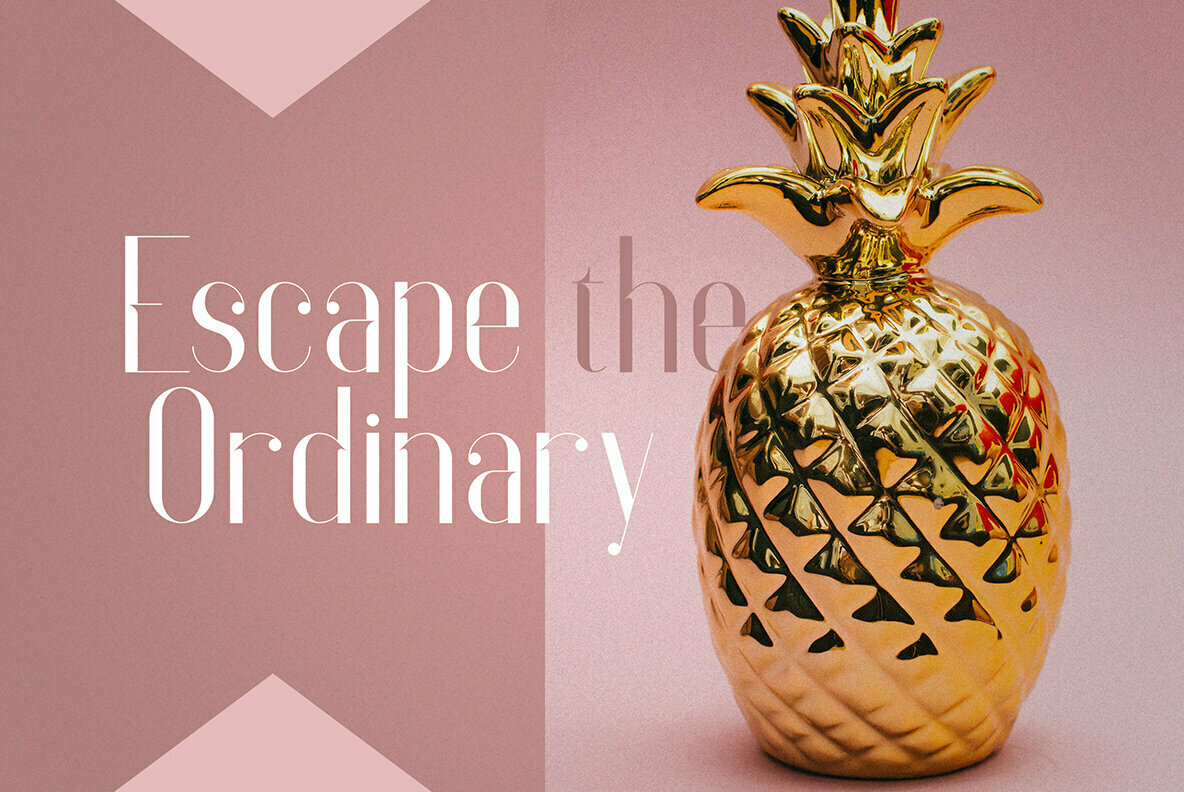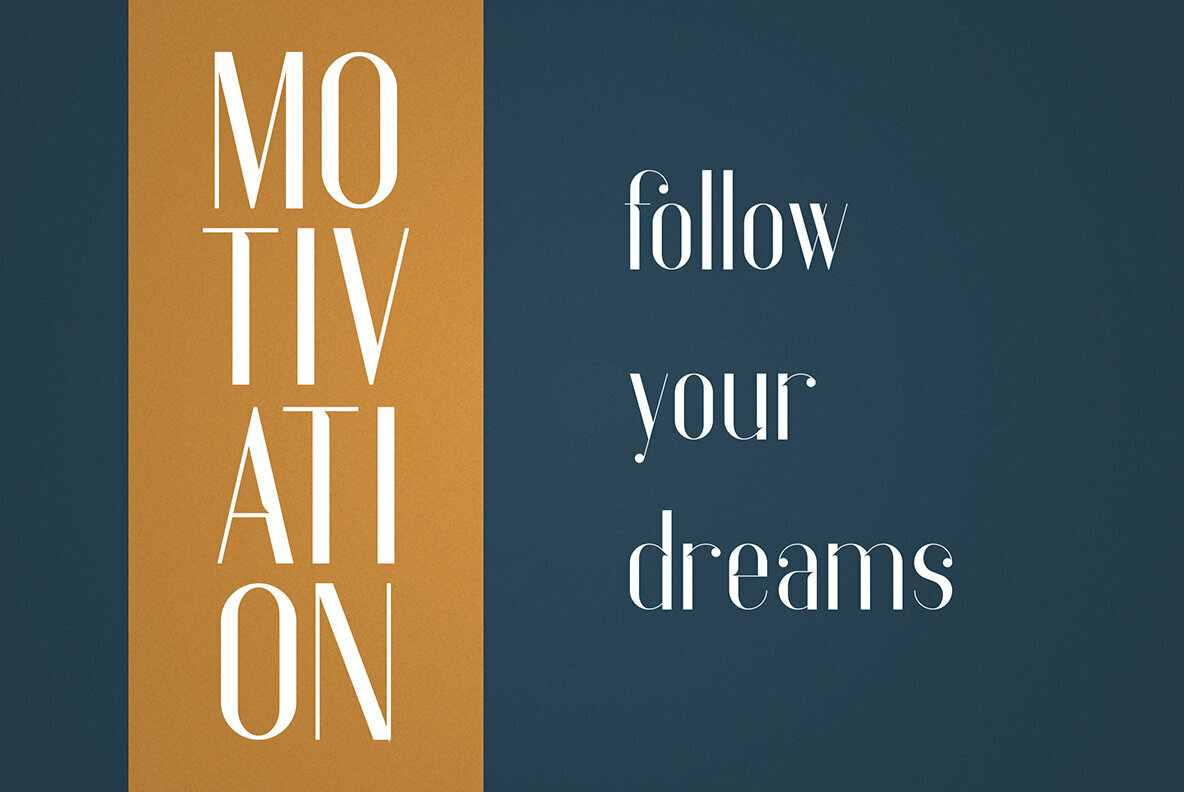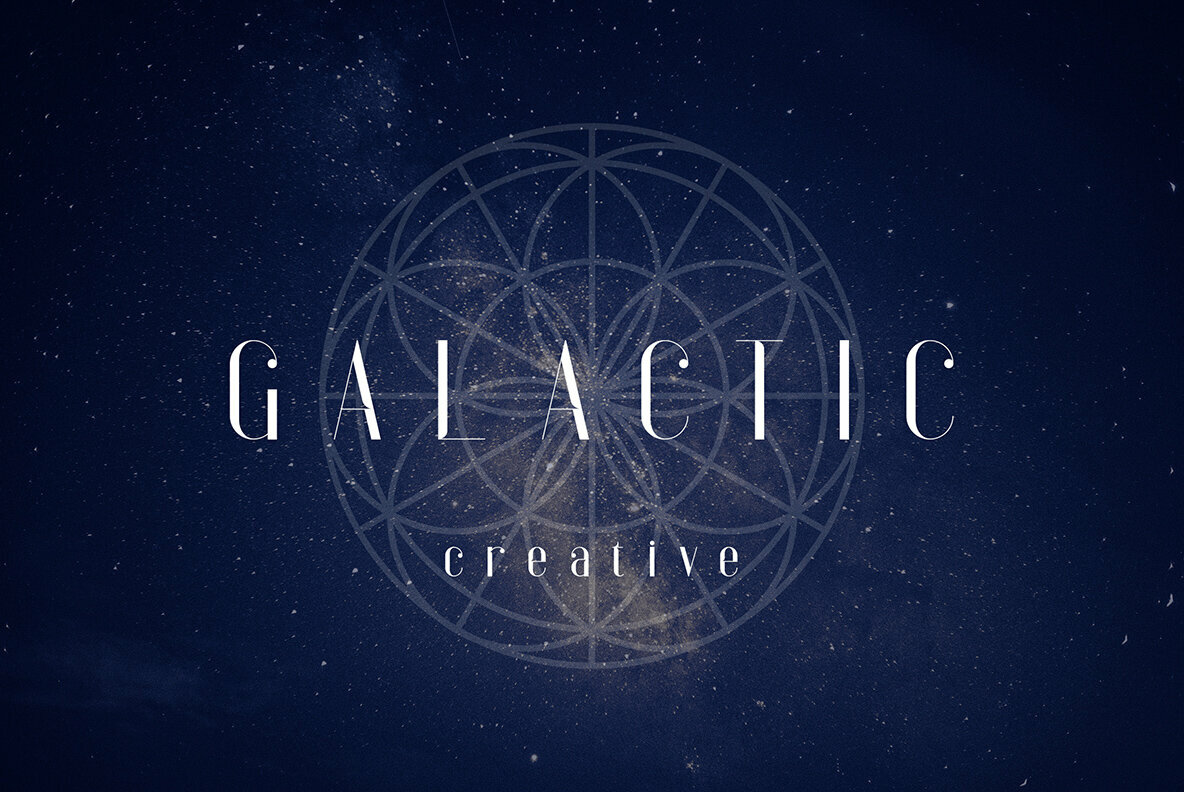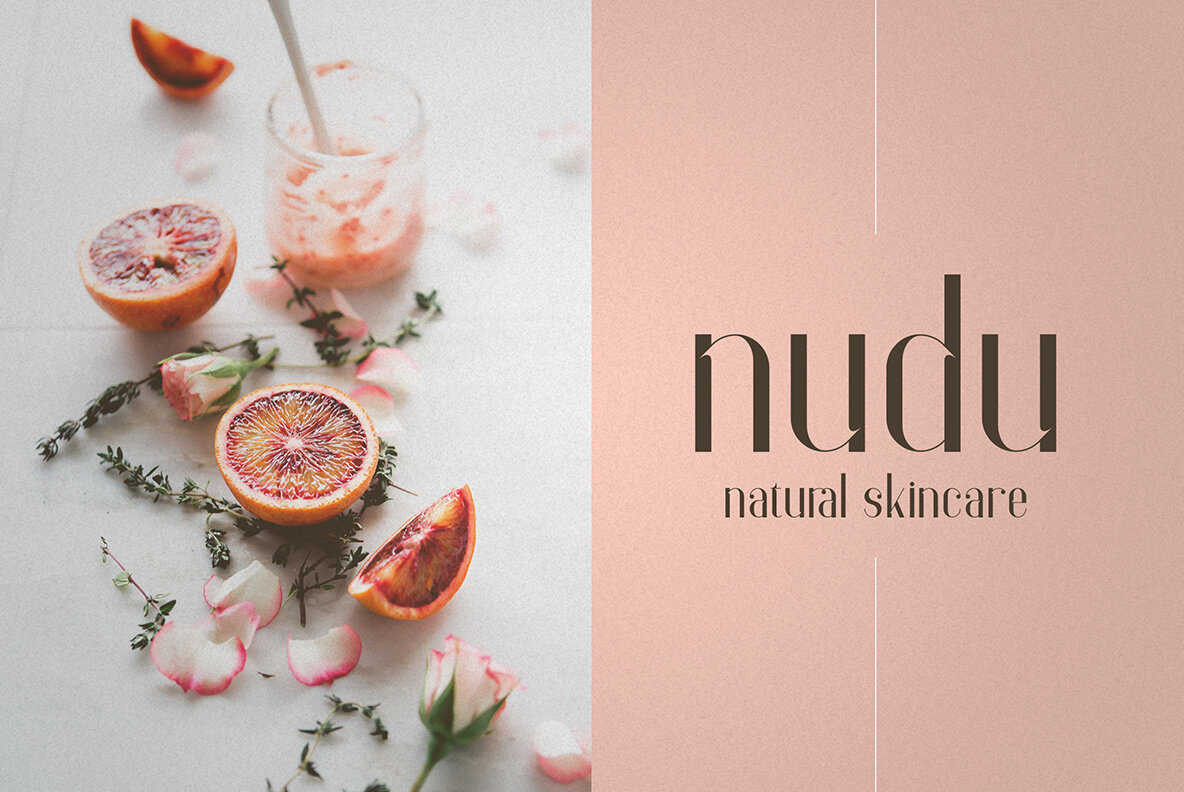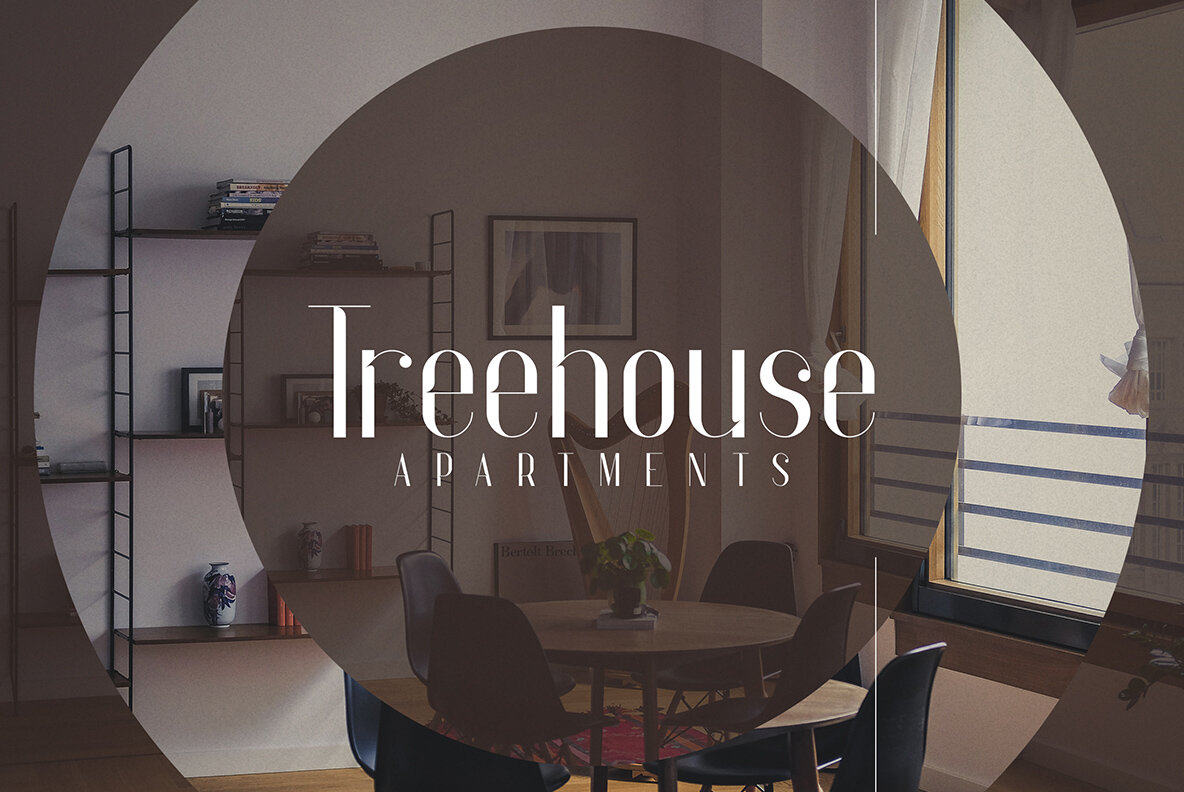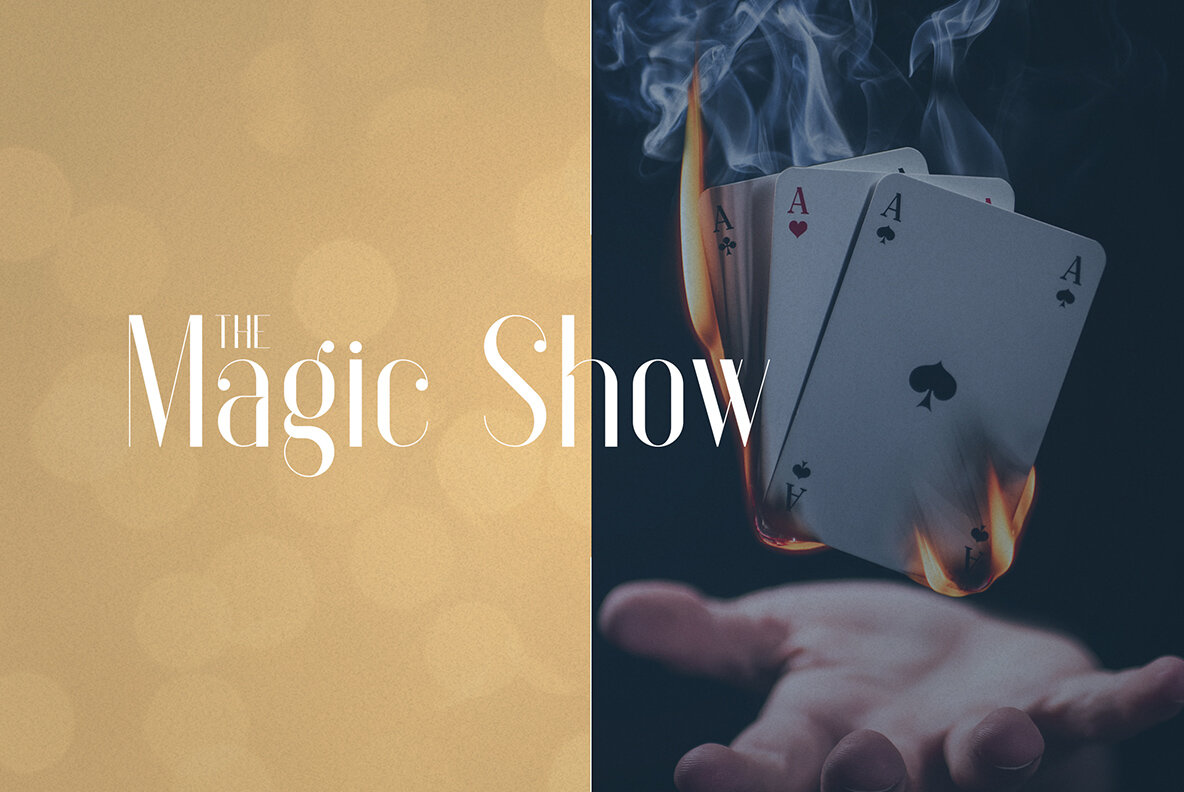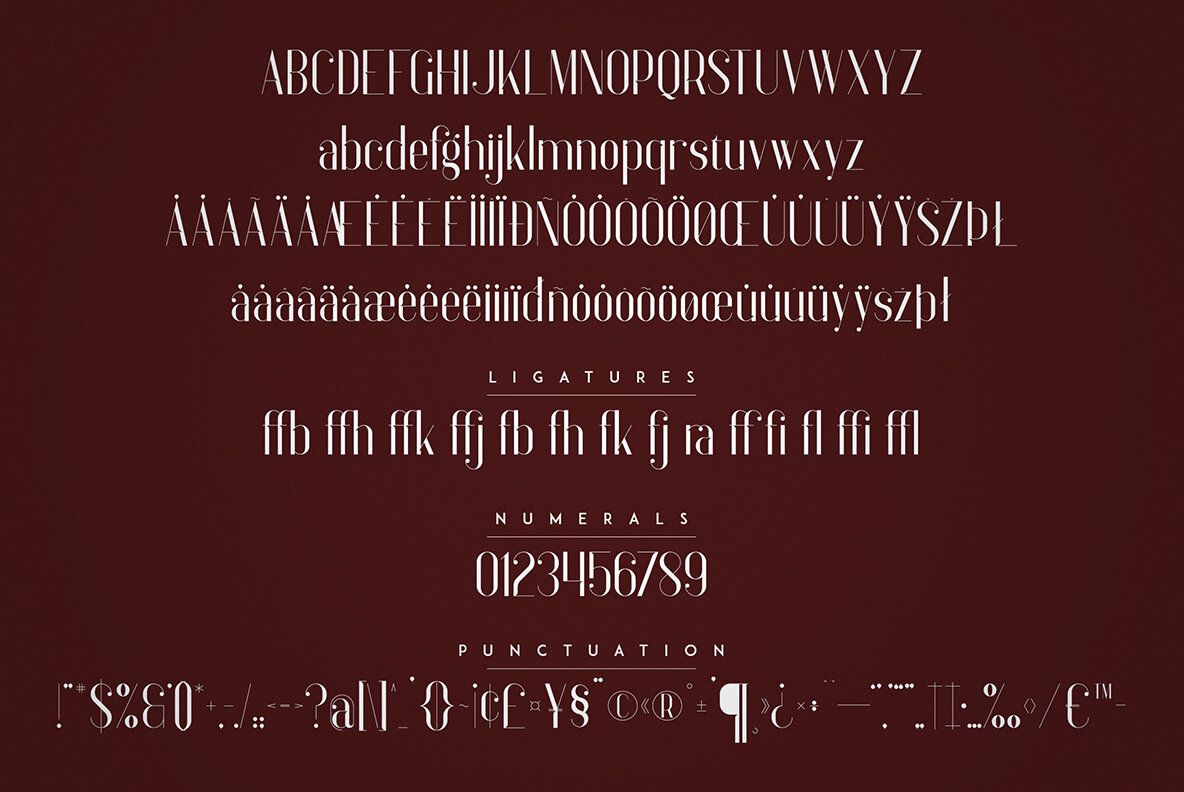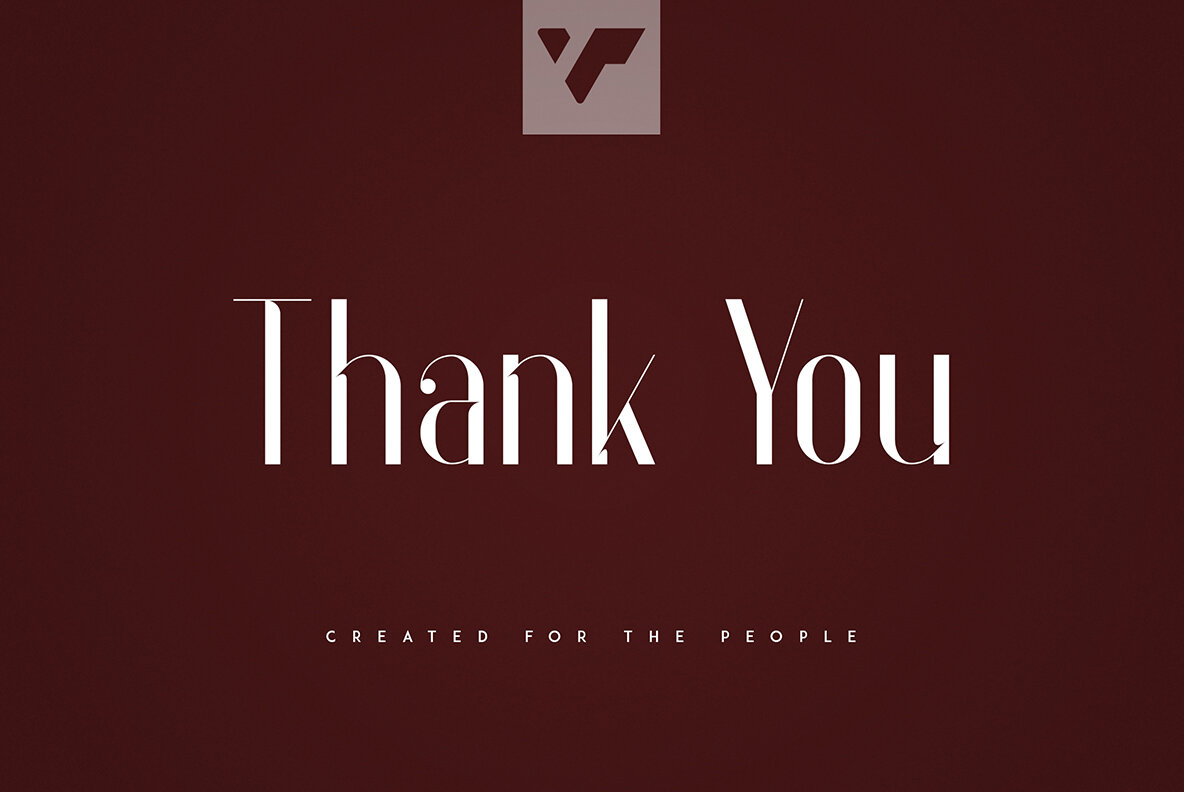
Anteric Font
Anteric Light
Anteric Regular
Anteric Bold
Anteric is a display typeface that seamlessly combines vintage aesthetics with modern versatility. It features three distinct weights—Light, Regular, and Bold—alongside ligatures and comprehensive multilingual support. This font is crafted to excel in both large and small applications, making it a fitting choice for a wide array of design projects. This typeface is particularly effective for branding endeavors, home decor projects, and product packaging. Its sophisticated design also renders it ideal for magazine headers or as a chic text overlay on various background images. Features:Anteric: Elegant Display Typeface with Vintage Appeal